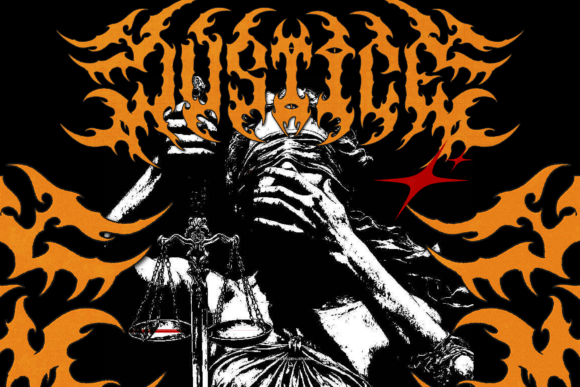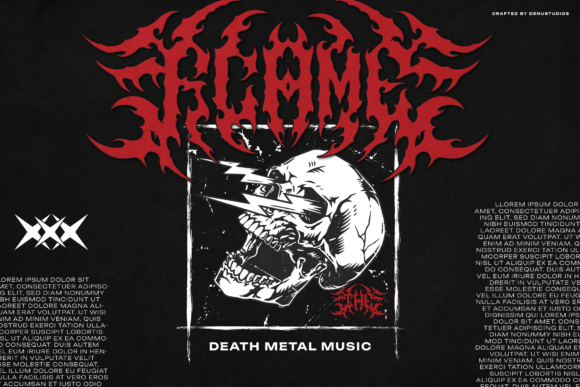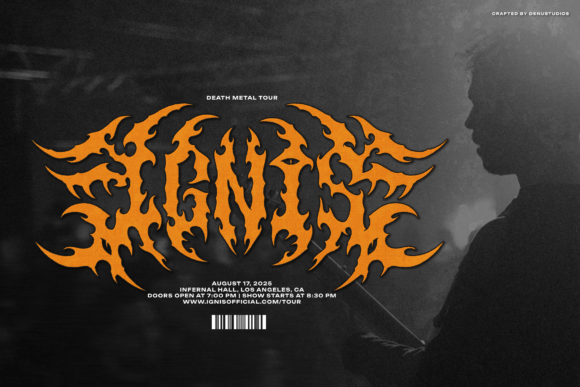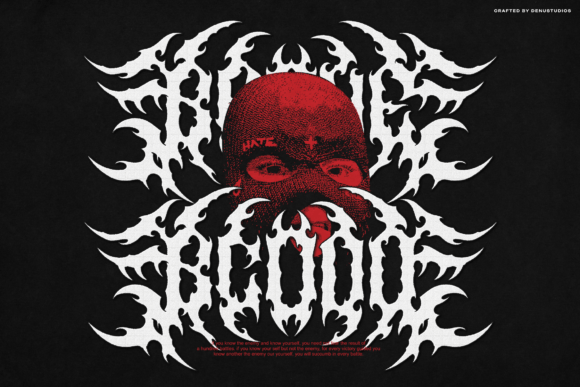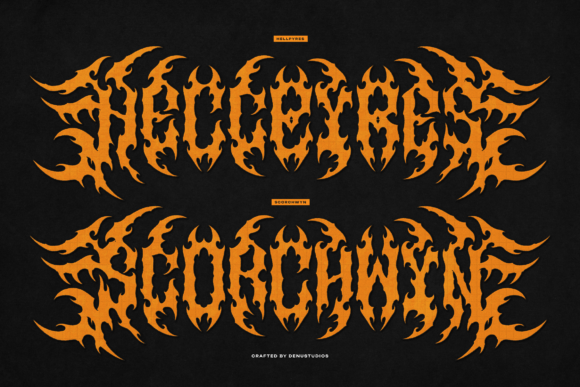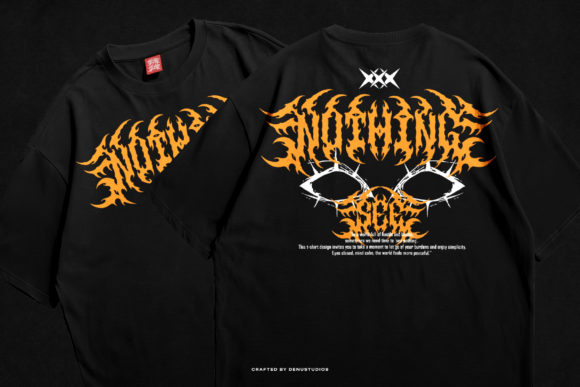
Grimore Morph Font: Unleash the Fierce Death Metal Aesthetic in Your Designs
Are you a designer or crafter looking to add a bold and aggressive touch to your projects? Look no further than the Grimore Morph font, a death metal-inspired typeface that’s perfect for creating striking logos, branding materials, and various design projects. In this article, we’ll dive into the world of Grimore Morph, exploring its features, uses, and benefits, as well as provide tips on how to make the most of this powerful font.
What is Grimore Morph Font?
Grimore Morph is a death metal font designed to bring a fierce and intense aesthetic to your designs. With its bold, rugged, and edgy letterforms, this font is ideal for projects that require a strong and aggressive visual identity. Whether you’re working on a logo, branding project, or any other design that needs a bold touch, Grimore Morph is the perfect choice.
Features of Grimore Morph Font
Grimore Morph boasts a range of features that make it an excellent addition to any designer’s toolkit. Some of its key features include:
- Death metal-inspired design: Grimore Morph’s letterforms are inspired by the bold and aggressive aesthetic of death metal music, making it perfect for projects that require a strong and edgy visual identity.
- Bold and rugged letterforms: The font’s bold and rugged letterforms are designed to make a statement, adding a touch of intensity and power to your designs.
- Versatile uses: Grimore Morph is suitable for a wide range of projects, including logos, branding projects, homeware designs, product packaging, mugs, quotes, posters, shopping bags, t-shirts, book covers, name cards, invitation cards, greeting cards, labels, photography, watermarks, and more.
Uses of Grimore Morph Font
Grimore Morph is an incredibly versatile font that can be used in a variety of design projects. Here are some ideas to get you started:
- Logos and branding projects: Use Grimore Morph to create bold and memorable logos and branding materials that make a statement.
- Product packaging: Add a touch of intensity to your product packaging with Grimore Morph, making your products stand out on store shelves.
- Merchandise: Create eye-catching merchandise, such as t-shirts, mugs, and posters, with Grimore Morph’s bold and rugged letterforms.
- Graphic design projects: Use Grimore Morph to add a bold and aggressive touch to your graphic design projects, such as posters, flyers, and brochures.
Benefits of Using Grimore Morph Font
There are many benefits to using Grimore Morph in your design projects. Here are a few:
- Instant recognition: Grimore Morph’s bold and rugged letterforms make it instantly recognizable, adding a touch of intensity and power to your designs.
- Versatility: Grimore Morph is suitable for a wide range of projects, making it an excellent addition to any designer’s toolkit.
Tips for Using Grimore Morph Font
Here are a few tips for using Grimore Morph in your design projects:
- Experiment with different sizes and colors: Grimore Morph looks great in a variety of sizes and colors, so don’t be afraid to experiment and find the perfect combination for your project.
- Pair with other fonts: Grimore Morph can be paired with other fonts to create a unique and interesting visual identity.
- Use it sparingly: While Grimore Morph is a bold and attention-grabbing font, it can be overwhelming if used too much. Use it sparingly to create a striking visual impact.
Grimore Morph is a powerful and versatile font that’s perfect for designers and crafters looking to add a bold and aggressive touch to their projects. With its death metal-inspired design, bold and rugged letterforms, and versatile uses, Grimore Morph is an excellent addition to any designer’s toolkit. Whether you’re working on a logo, branding project, or any other design that needs a bold touch, Grimore Morph is the perfect choice.